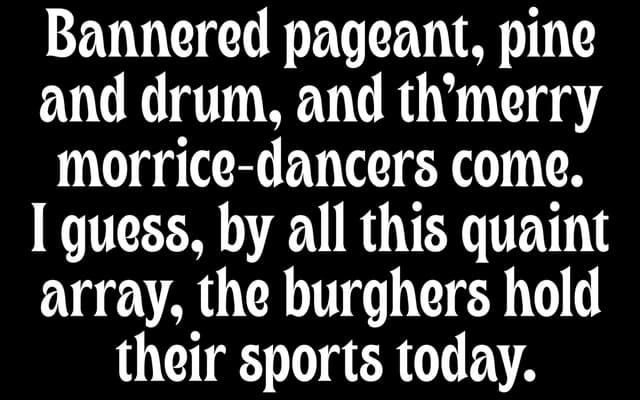
Jack's Maggot
A medieval-flavoured display face from Beasts of England, described as funky and polarising, inspired by the spirit of an 80s folk-dance band.
Taking its name from an 80s folk band, this display typeface leans into a medieval, bawdy character that the foundry likens to Marmite. The accompanying copy frames it as deliberately rough-edged and festive, suited to work that wants personality over polish. It sits comfortably in poster, event and editorial contexts where a folk or rustic tone is wanted.
Described as 'hairy, medieval, bawdy-ballad-jamming', suggesting a decorative display face with medieval or blackletter character, positioned as funky and irreverent rather than a strict blackletter.